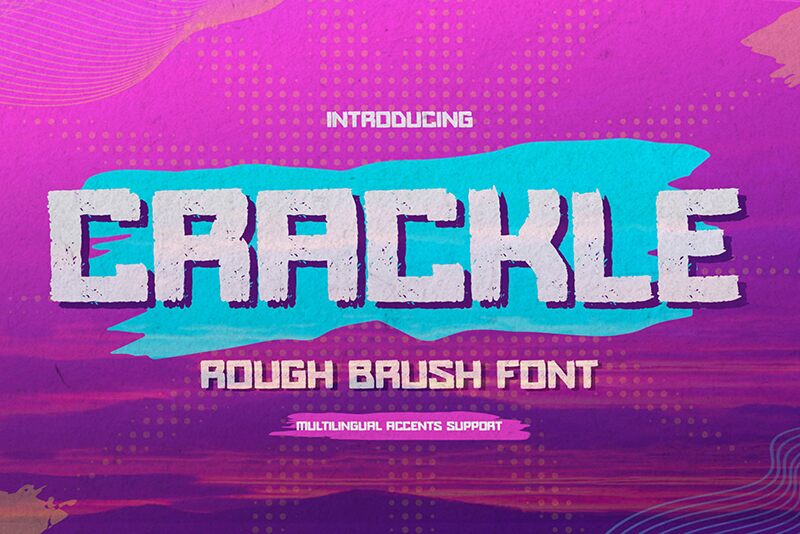
Crackle
Crackle font by Gassstype exudes a bold and distinct personality, characterized by its rough brush style that captures attention with an artistic flair. The expansive letterforms create an impactful presence, making each character stand out with an energetic vibrancy. Its textured finish adds a unique, handcrafted quality that resonates with creativity and authenticity.
Ideal for dynamic branding, striking poster designs, or engaging social media visuals, Crackle effortlessly combines aesthetic appeal with functionality. Whether used in large headlines or as part of playful merchandise designs, this font embodies a sense of spontaneity and originality that invites viewers to connect and engage. With Crackle, every project gains an inherent charm that speaks volumes.